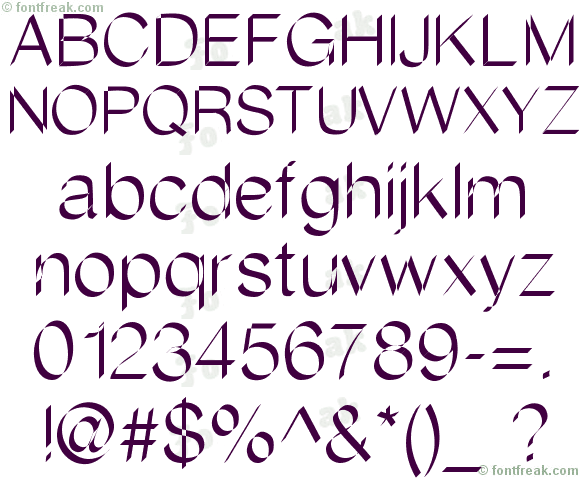
Flatstock
The Flatstock font by Shara Weber is a captivating display typeface that combines modern elegance with a touch of vintage charm. As a member of the sans-serif category, Flatstock features clean lines and a straightforward design, making it versatile for a range of creative applications. Its uniform stroke weight provides a balanced appearance, while the slight contrast in letterforms adds a hint of personality without compromising readability.
Visually, the Flatstock font is characterized by its geometric shapes and consistent spacing, which contribute to a polished and professional look. The lack of excessive decorative elements allows it to serve various design needs while maintaining a contemporary feel. This simplicity makes it particularly appealing for projects that require clarity and impact.
The best use cases for Flatstock are numerous. It shines in wedding invitations, where its stylish yet legible form can convey elegance and sophistication. Flatstock is also ideal for movie posters, providing a strong visual statement that captures attention. Furthermore, it works well in restaurant menus, adding a modern flair that enhances the dining experience. Small business owners looking to create brand materials will find Flatstock to be an excellent choice for logos and promotional graphics.
What sets Flatstock apart is its ability to blend functionality with aesthetics seamlessly. It provides a striking visual presence while remaining versatile enough to adapt to various contexts, making it an essential choice for anyone looking to make a lasting impression with their typography.